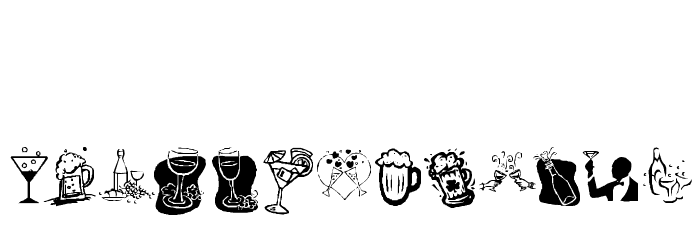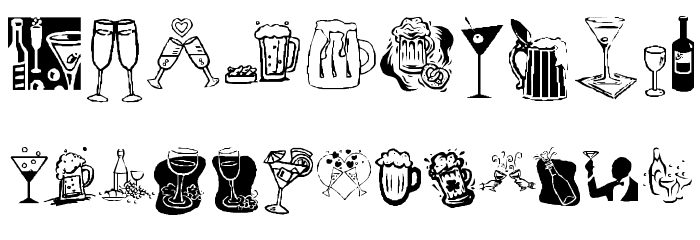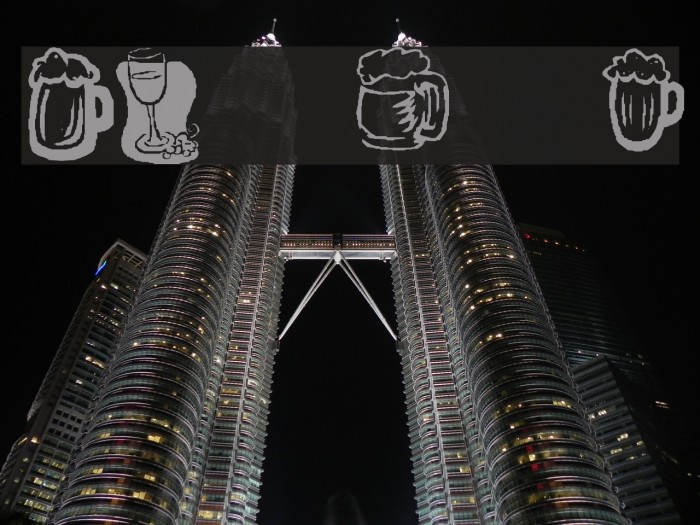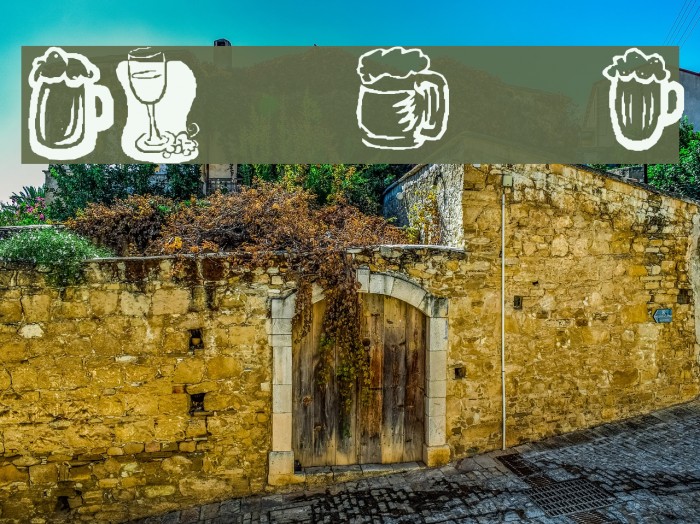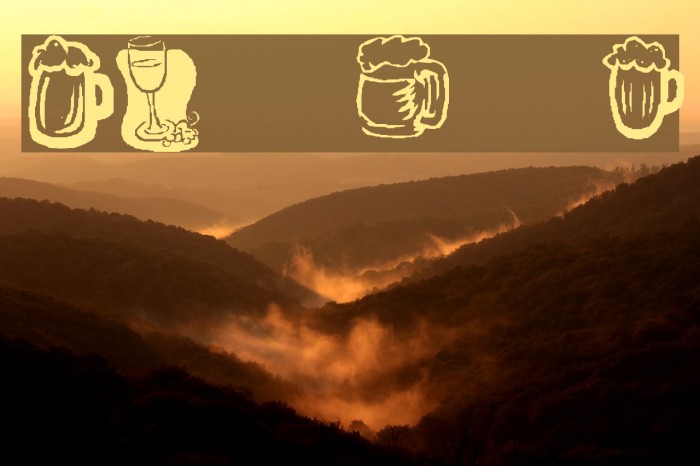
KR Drink Up! Font
This is a decorative font featuring a variety of drink-themed illustrations. Each character is represented by a unique graphic, including images of cocktails, beer mugs, wine glasses, and bottles. The style is playful and whimsical, making it ideal for projects that require a fun and lively aesthetic. The characters are bold and detailed, with a mix of solid and outlined elements that add visual interest. The font is not suitable for body text due to its illustrative nature but can be effectively used for decorative purposes in themed designs.
A decorative font with drink-themed illustrations, perfect for playful designs.
- Proposed Projects: Ideal for party invitations, bar menus, event posters, and themed graphic designs.
- Use Case: Logos, Headlines, Decorative elements